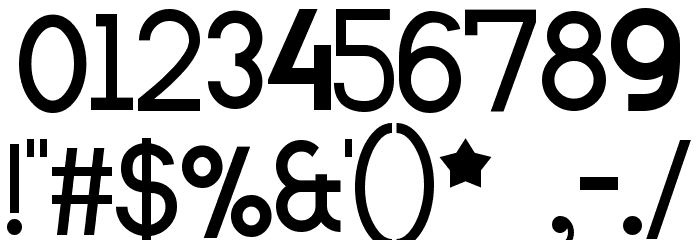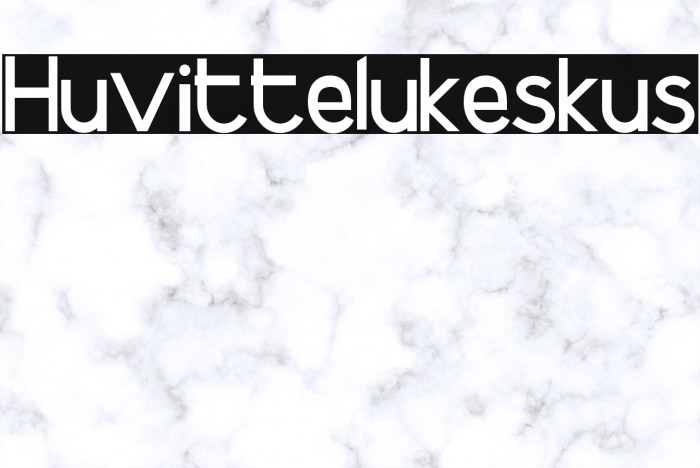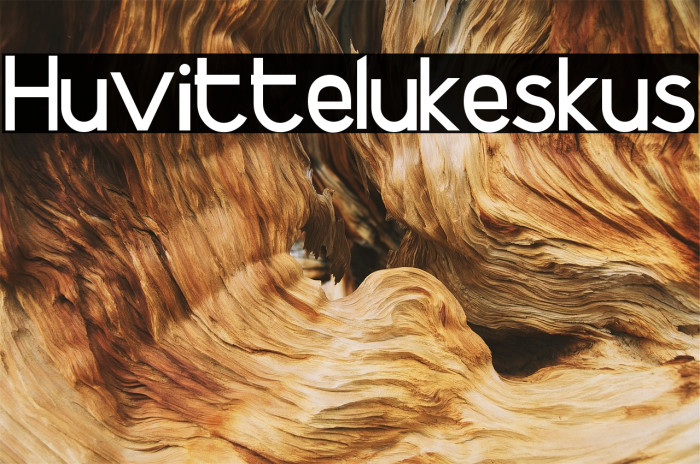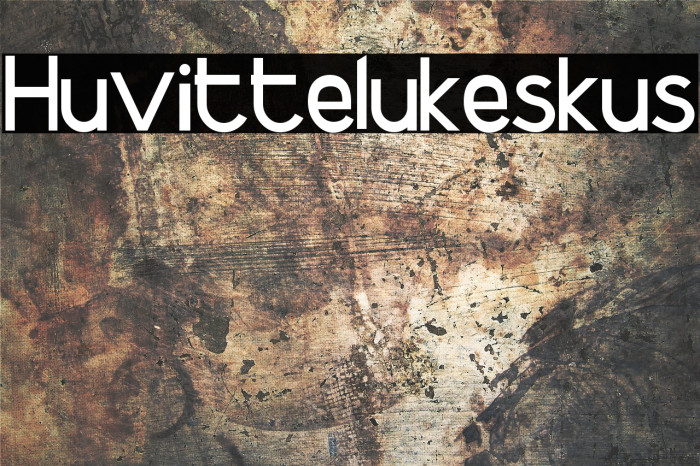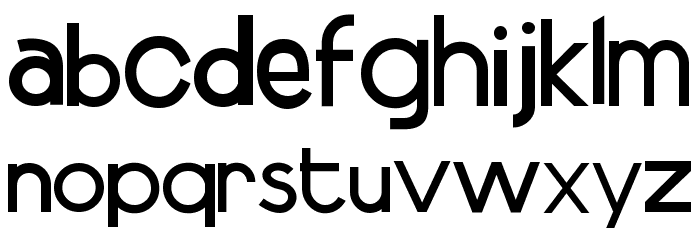
Huvittelukeskus Font
This font features a clean and modern sans-serif design with uniform stroke widths, giving it a sleek and contemporary appearance. The characters are well-balanced with a geometric influence, evident in the circular shapes of the 'o', 'e', and 'c'. The uppercase letters are bold and assertive, while the lowercase letters maintain a friendly and approachable feel. The numerals are clear and easy to read, making them suitable for various applications. Special characters are distinct and harmonize well with the overall style, ensuring versatility in design projects.
• Proposed Projects: Ideal for branding, advertising, web design, and editorial projects where a modern and clean aesthetic is desired.
• Category: Sans-Serif
• Bold: Yes
• Italic: No
• Weight: Bold
• Width: Normal
• Character Spacing: Normal
• Contrast: Low
• Overall Style: Modern
• Use Case: Headlines, Logos, Web design